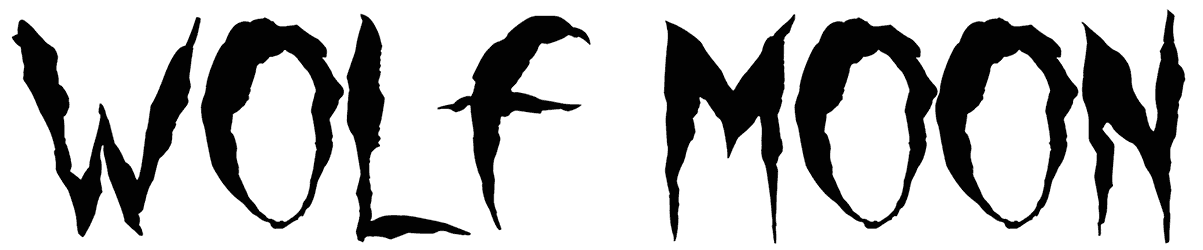
Utilize Unfinished Scream and achieve one typography with a vintage feel that is scary! The characters of this specific horror font are weird, slim, tall, and have sharp edges. You will be inspired to know that this font is also available in 2 fantastic versions!
There are mixed case alphabets, a full set of numbers, and punctuations, that are all included in this font. Unfinished Scream will surprise you, especially when utilized in places like horror movies, books, stories, clothing, and games.